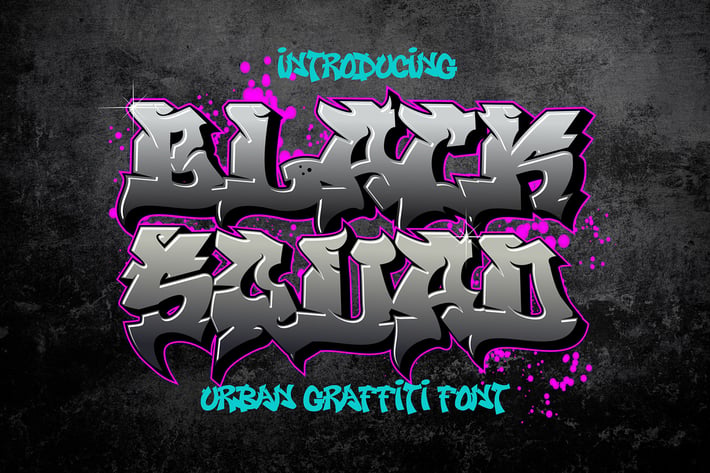
Black Squad - Urban Graffiti Font
Black Squad is a spectacular Display font with a Fatty and Cools graffiti style for your design to look awesome. It will elevate a wide range of design projects to the highest level, be it branding, headings, designs, invitations, signatures, logotypes, wall art illustrations, labels, and much more!